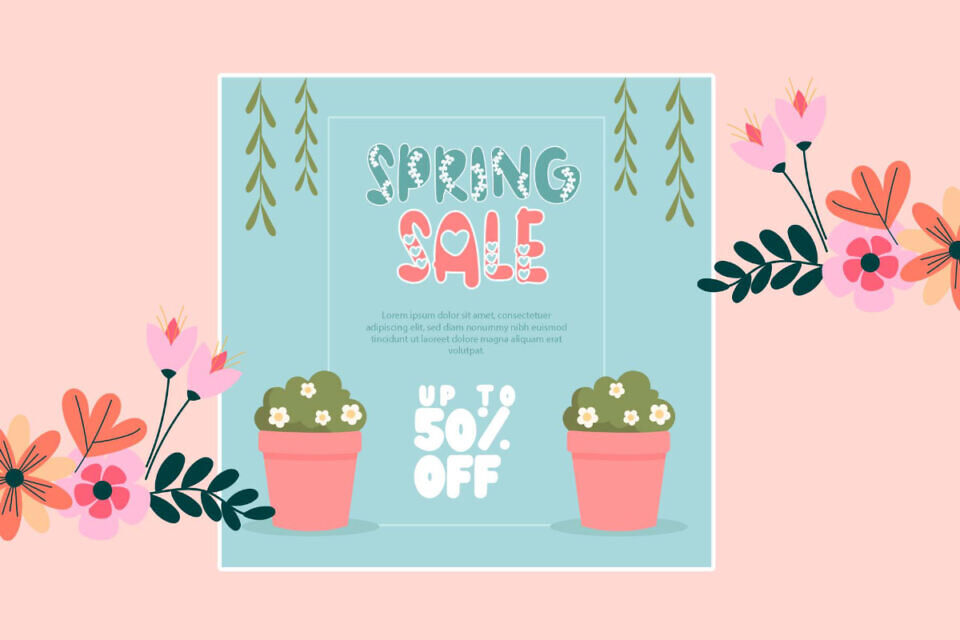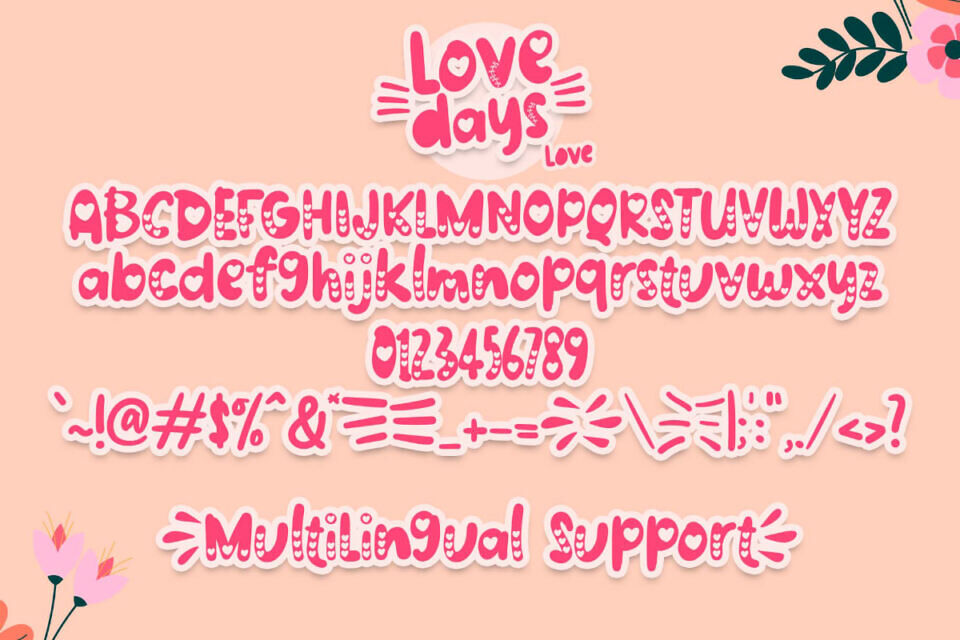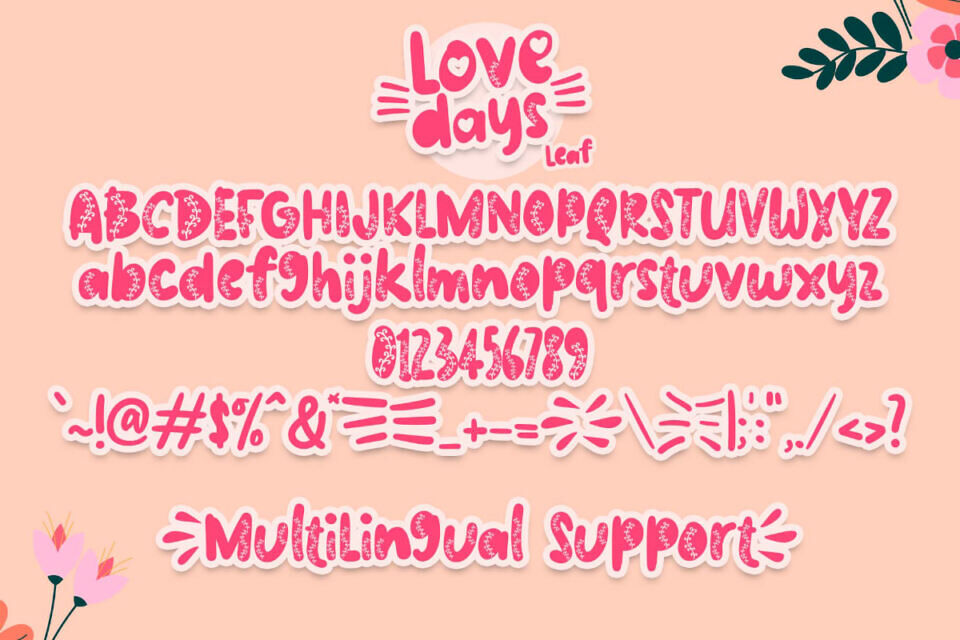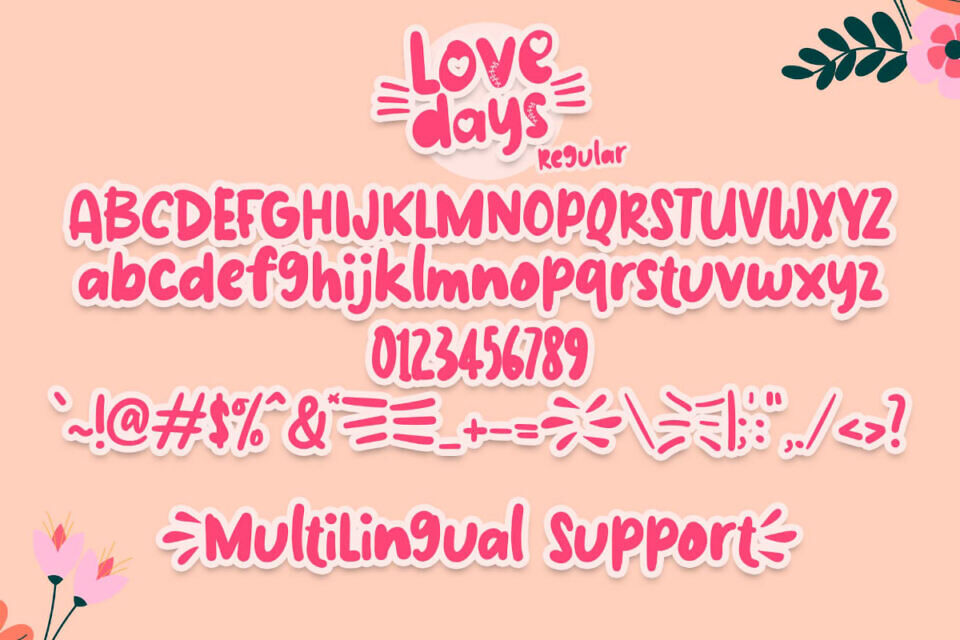
Love Days Font is a romantic and elegant typeface designed to add a touch of love and sophistication to your projects. With graceful letterforms and a timeless style, this font is perfect for wedding invitations, love letters, branding, and any design where a romantic and charming touch is desired.